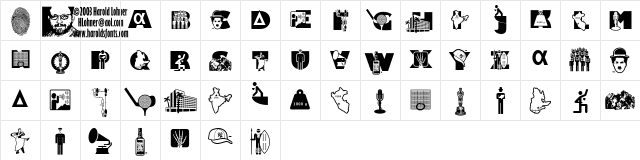
Alpha Bravo Regular
Copyright: ALPHA BRAVO computer font v1.0 ©2003 Harold Lohner "  " www.haroldsfonts.com Dingbats based on international radio "phonetic alphabet." Certain images may be the property of individual copyright/trademark owners
Design Context for Alpha Bravo
Alpha Bravo is a composed and adaptable typeface that performs quietly and consistently across a wide range of design contexts.